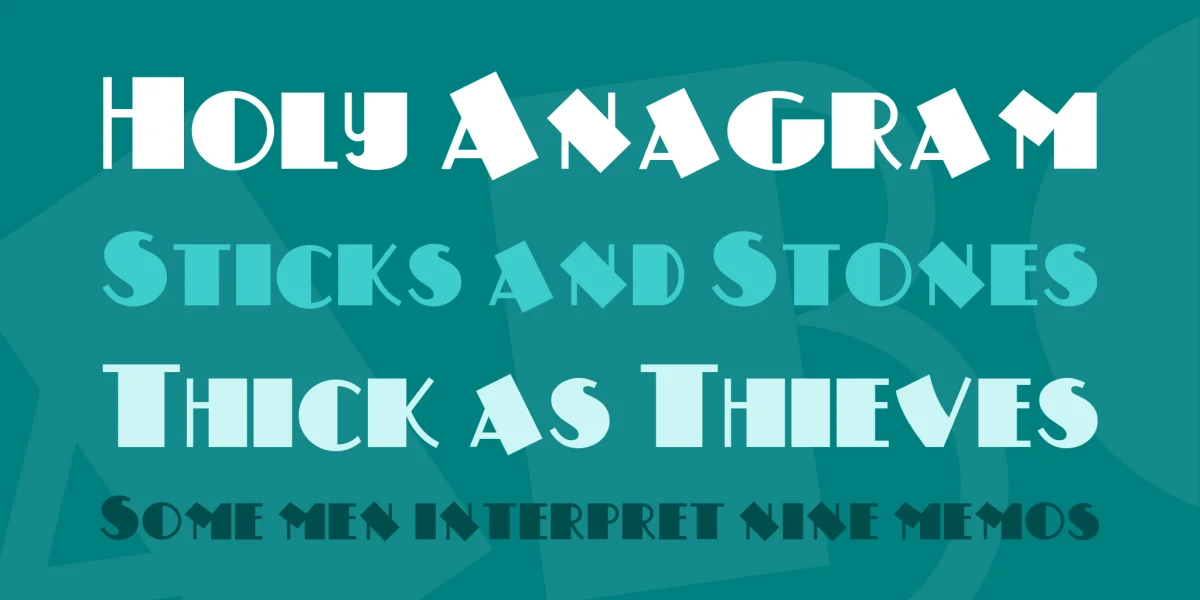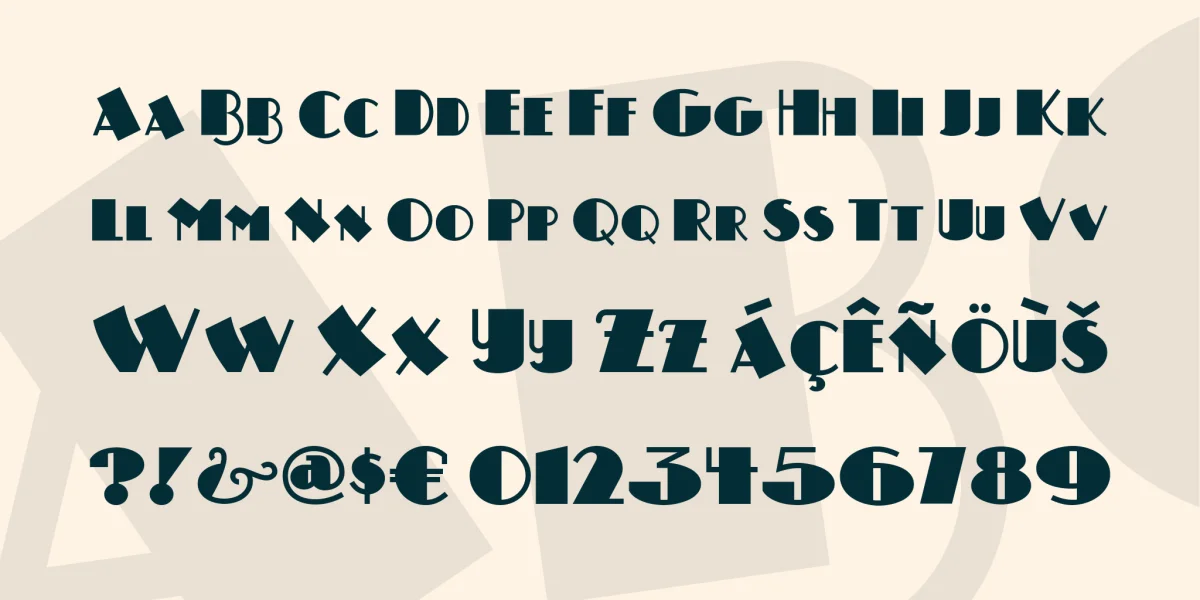
This spritely, definitely non-serious Art Deco font was inspired by lettering on a German poster, circa 1930, by the studio that lends the font its name.